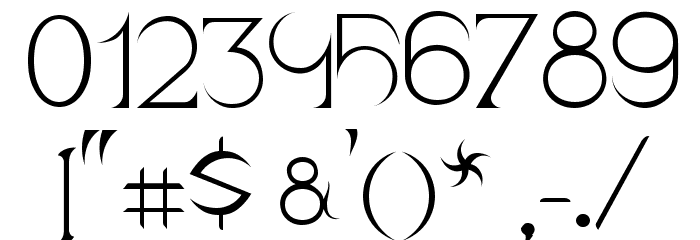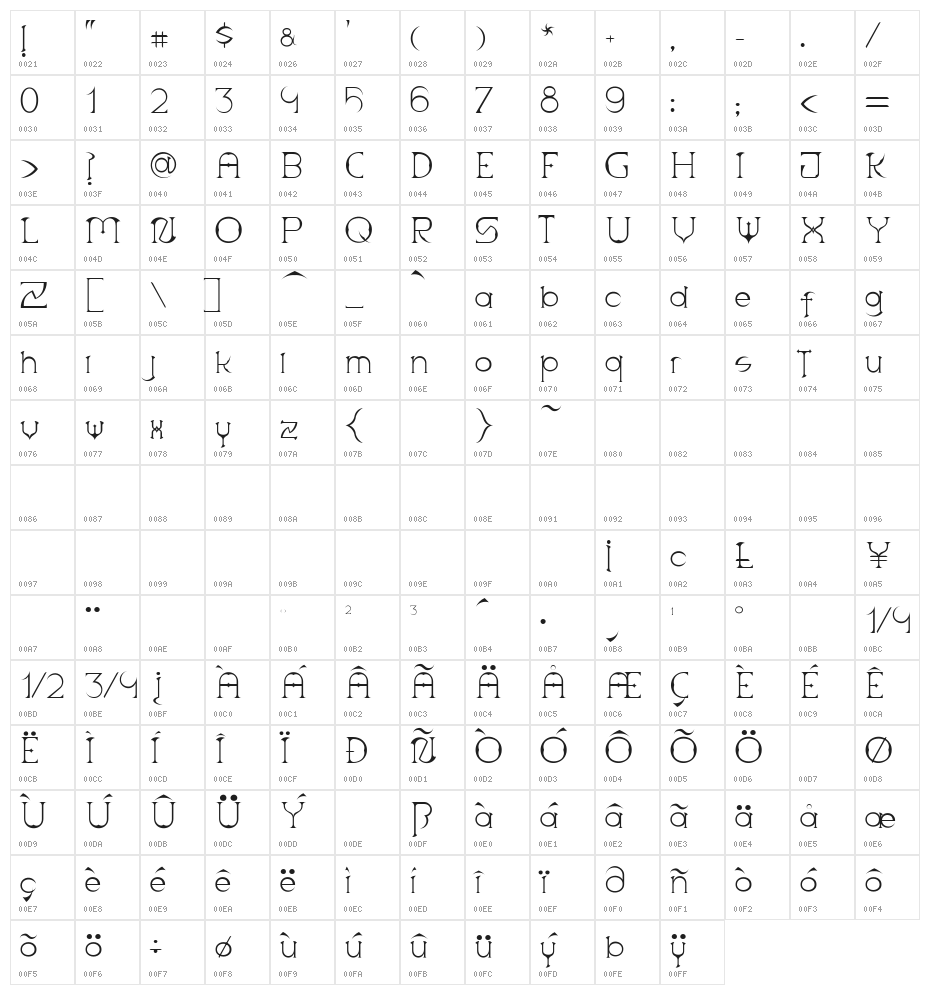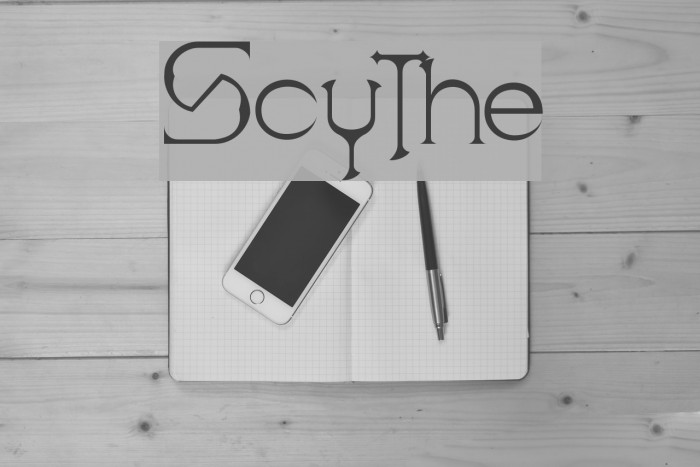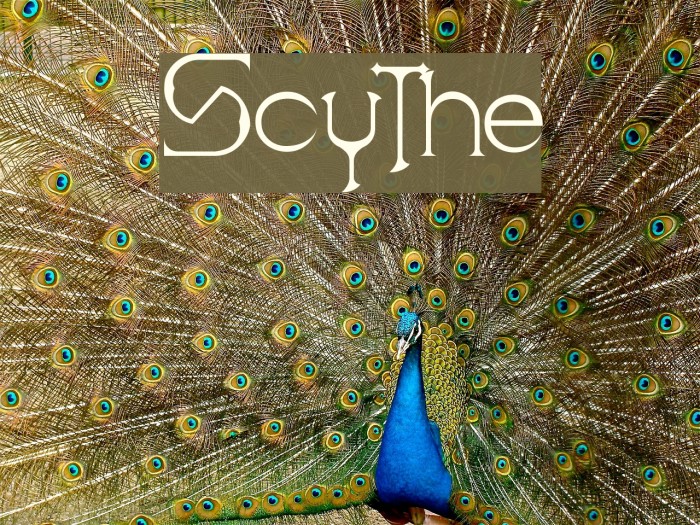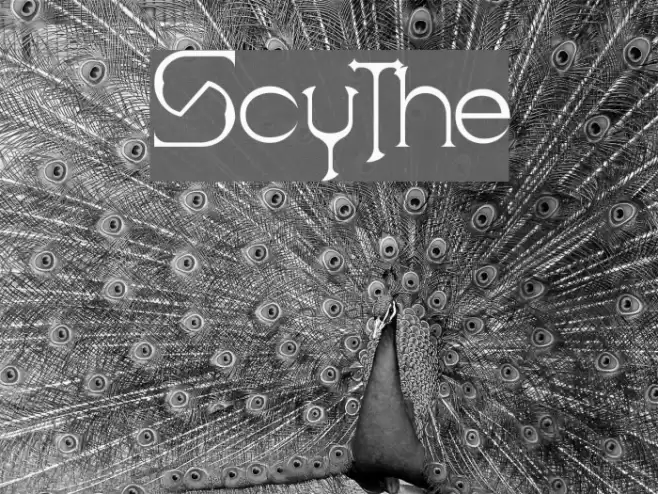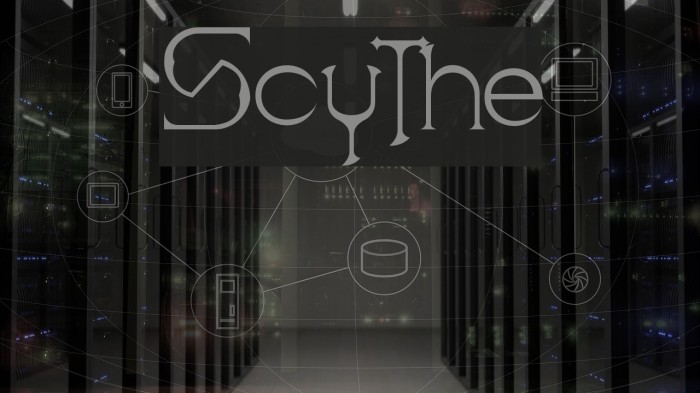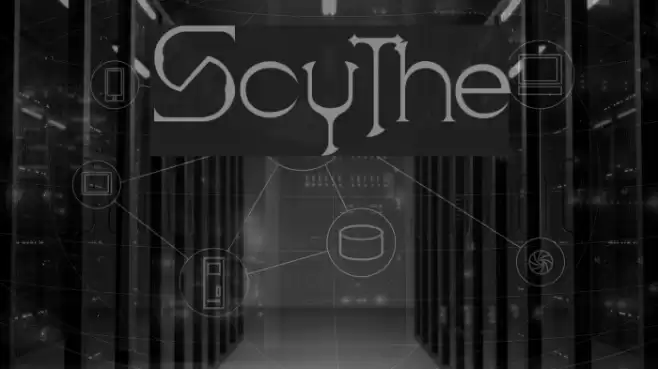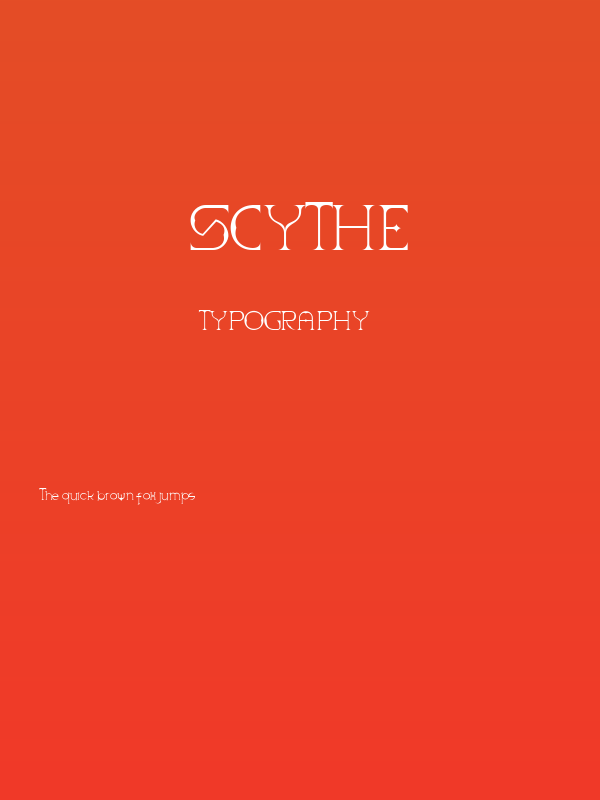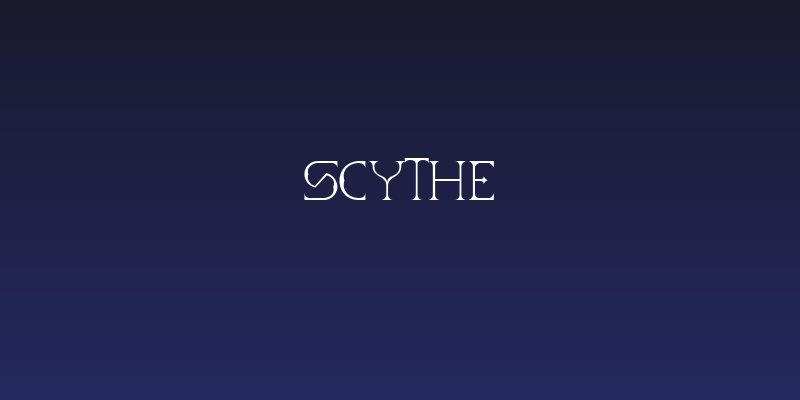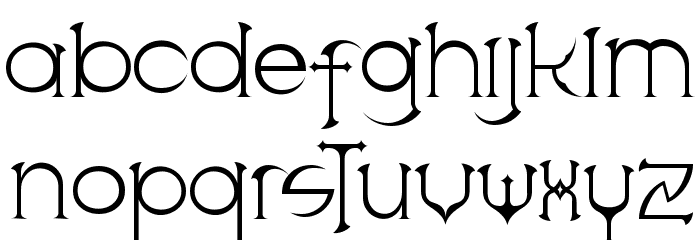
Scythe Font
Scythe Description
This font exhibits a unique and artistic style, characterized by its sharp, angular serifs and distinctive geometric shapes. The uppercase letters feature a bold presence with elongated verticals and intricate detailing, while the lowercase letters maintain a consistent flow with subtle curves and pointed terminals. The numerals are equally stylized, offering a cohesive look that complements the alphabet. Special characters are crafted with the same attention to detail, ensuring a harmonious appearance across all glyphs. This font's design is both modern and edgy, making it suitable for creative and bold applications.
| Overall Style | Modern, Edgy |
| Proposed Projects | Ideal for branding, posters, album covers, and any project requiring a bold, artistic touch. |